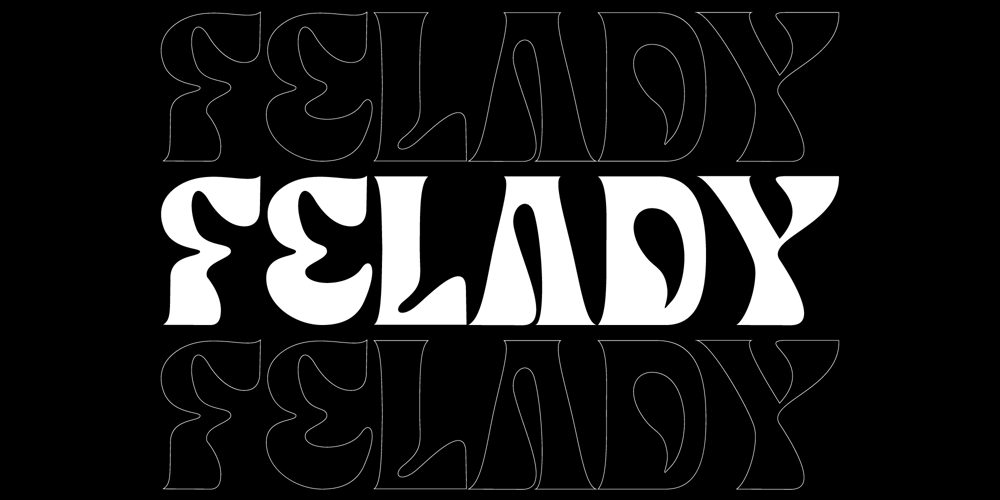
Felady
Felady font
Felady Font Family was designed by muhamad taufik ramadhana and published by emilly studio. Felady contains 1 styles and family package options. Felady is a stylish and sophisticated display font. Its charming, retro, uniquely shaped characters are perfect for creating gorgeous designs!